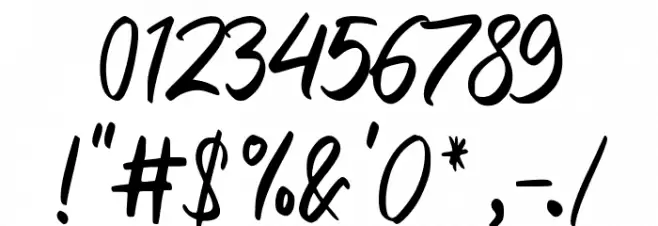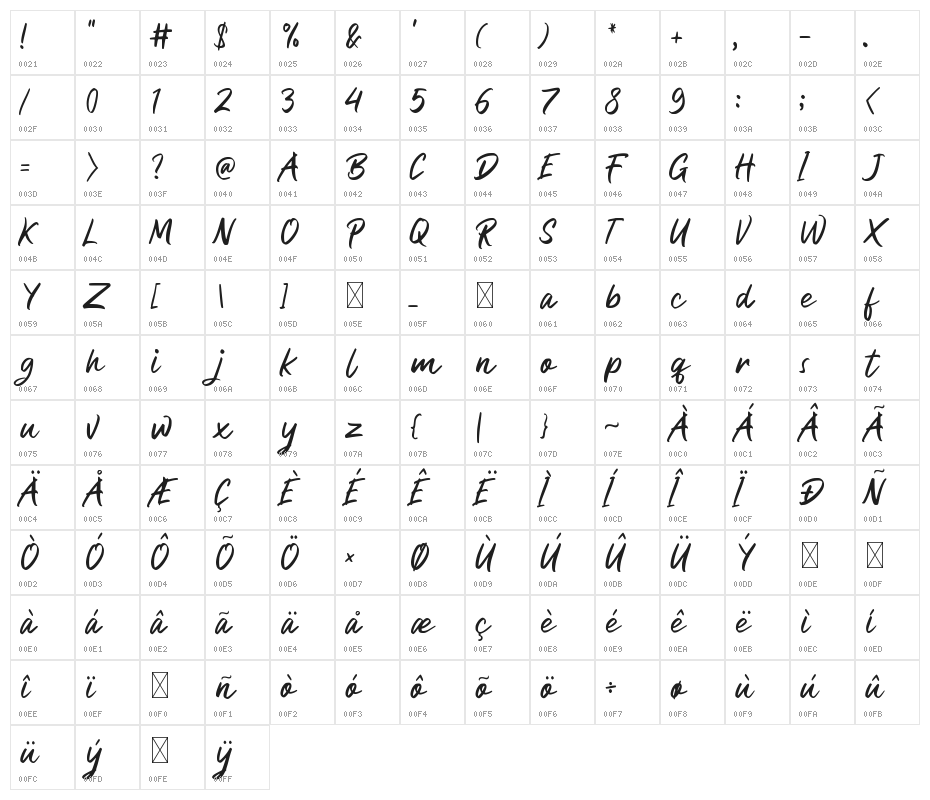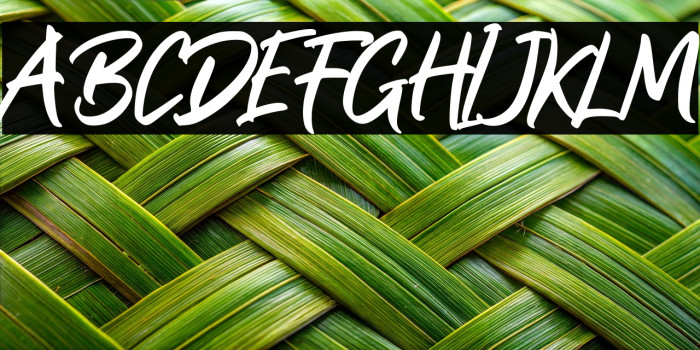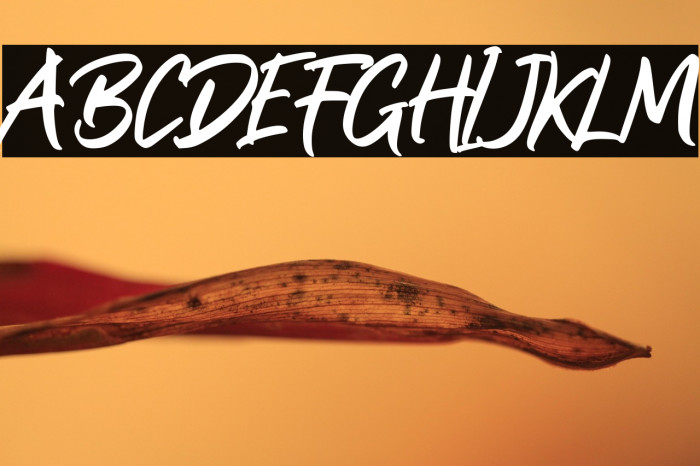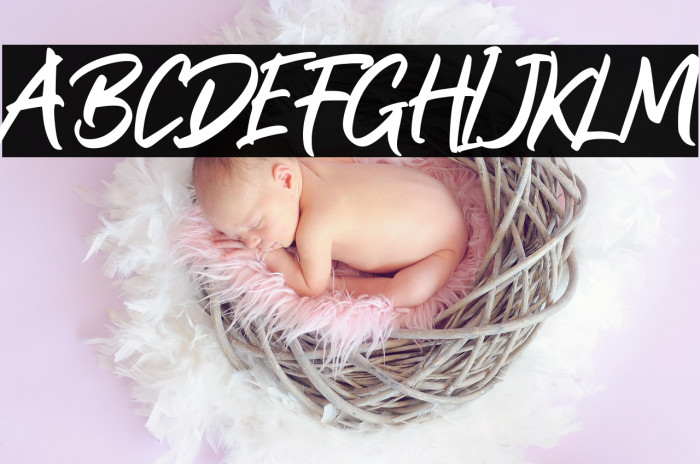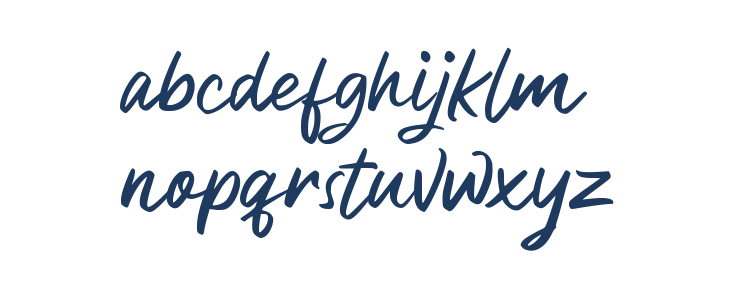
Bezitta Font
Bezitta Description
This font features a dynamic and expressive handwritten style, characterized by its fluid and cursive letterforms. The strokes are bold and confident, with a slight slant that adds to its energetic appearance. The uppercase letters are tall and commanding, while the lowercase letters maintain a consistent flow, creating a harmonious balance. The numerals and special characters are crafted with the same attention to detail, ensuring a cohesive look across all elements. This font's lively and personal touch makes it ideal for projects that require a humanistic and approachable feel.